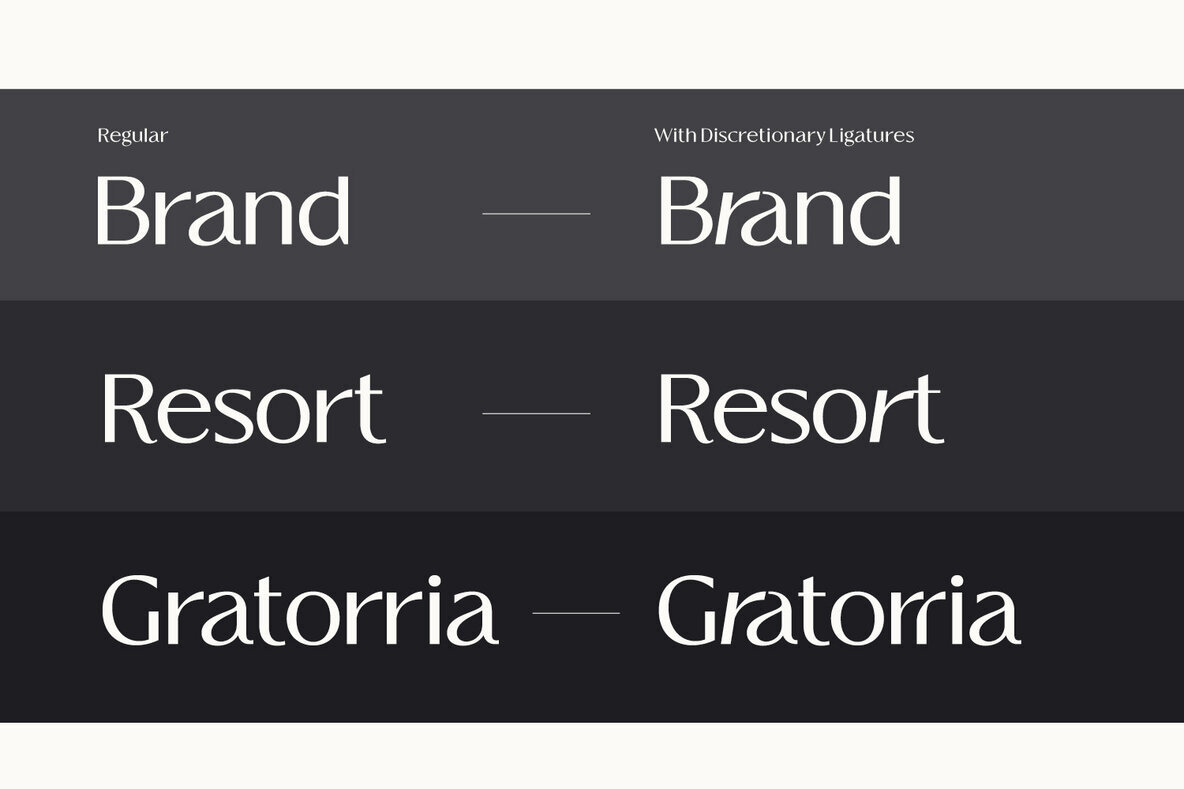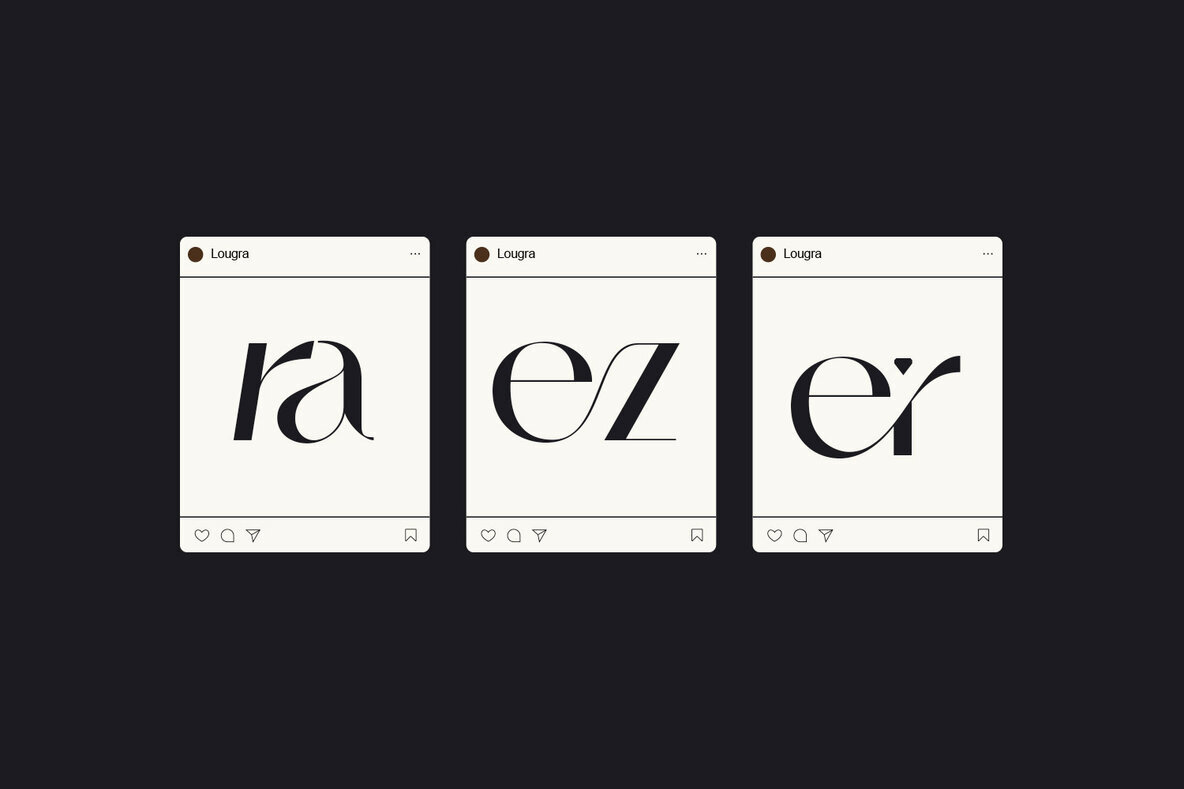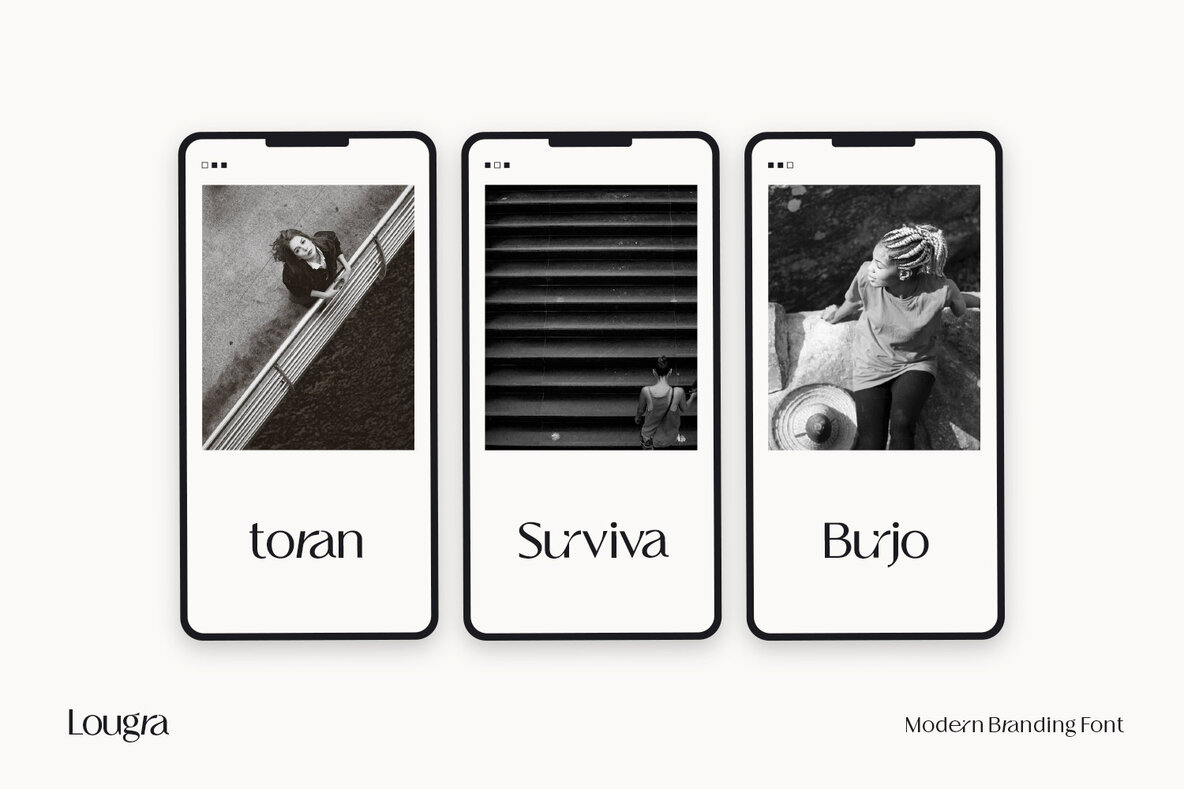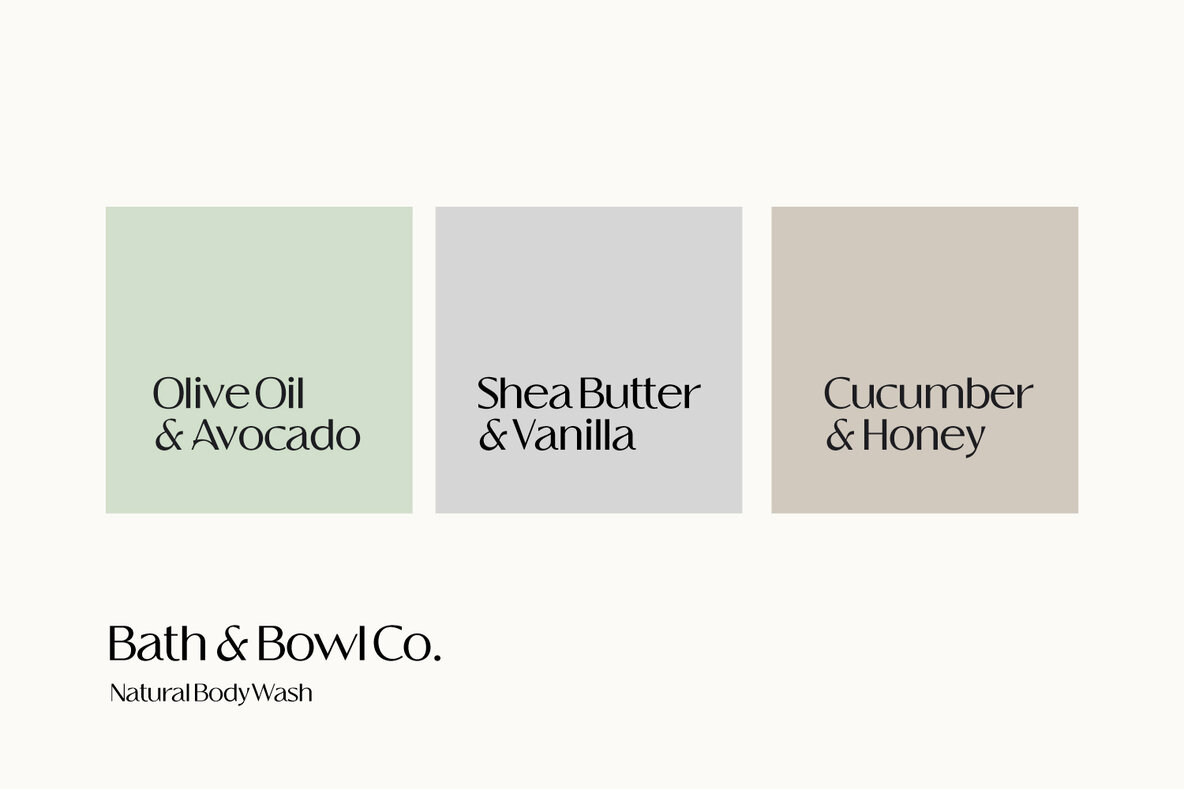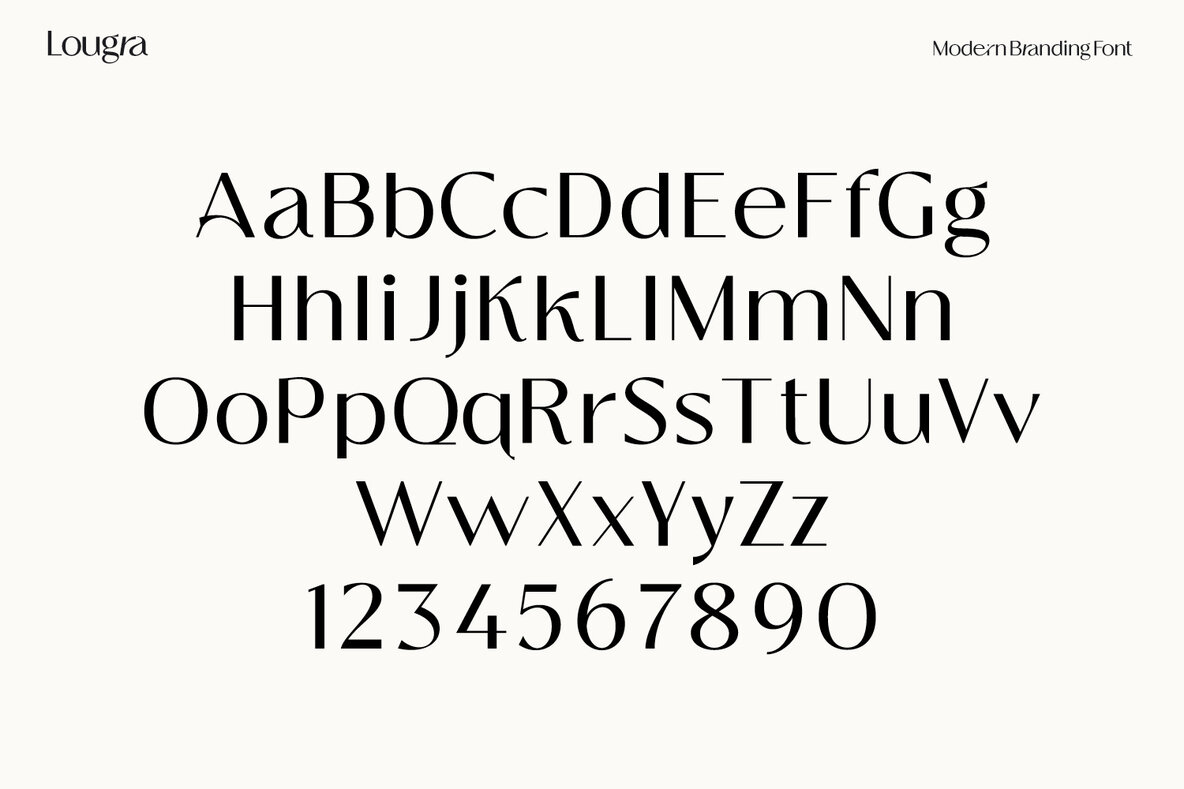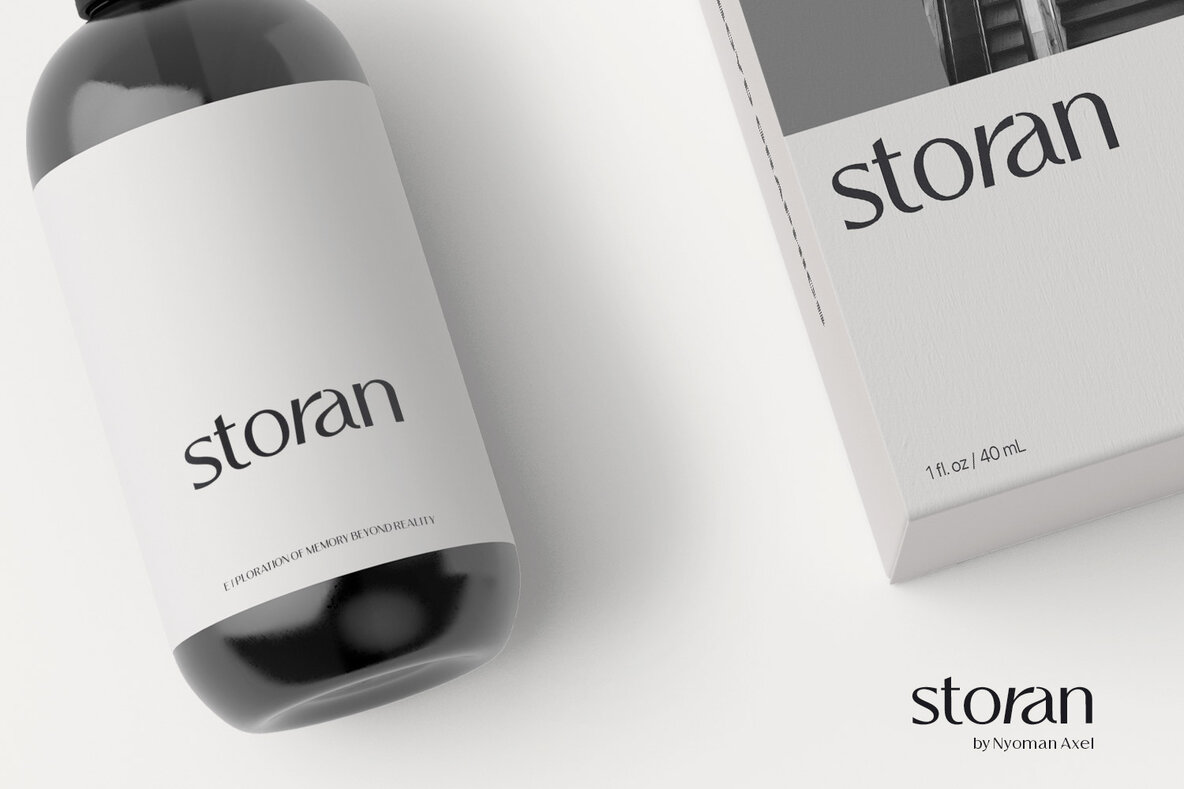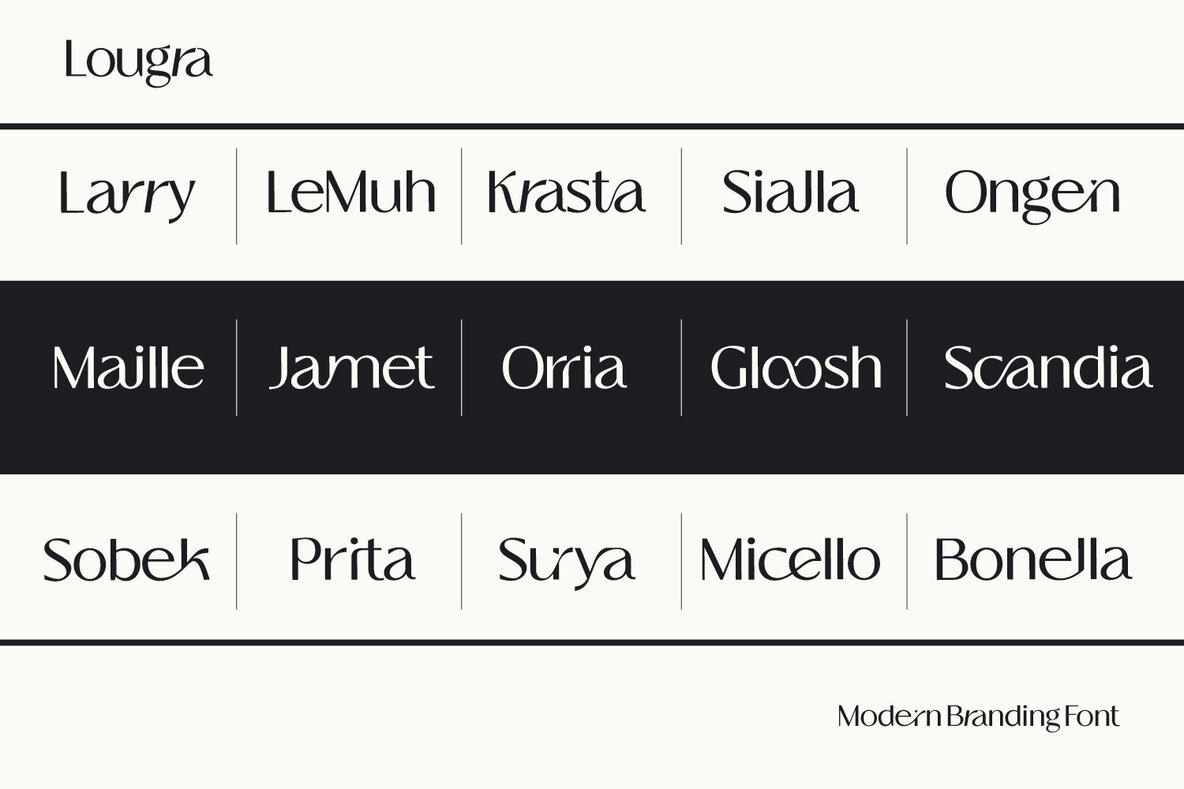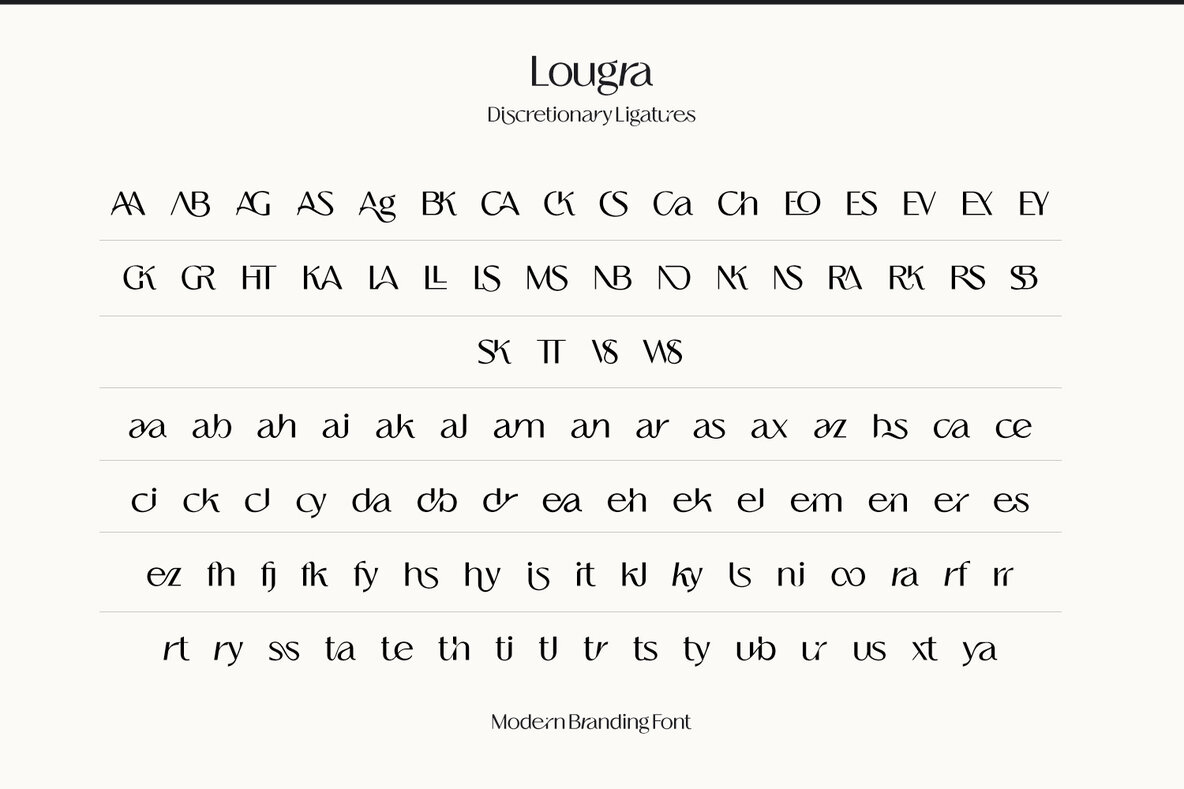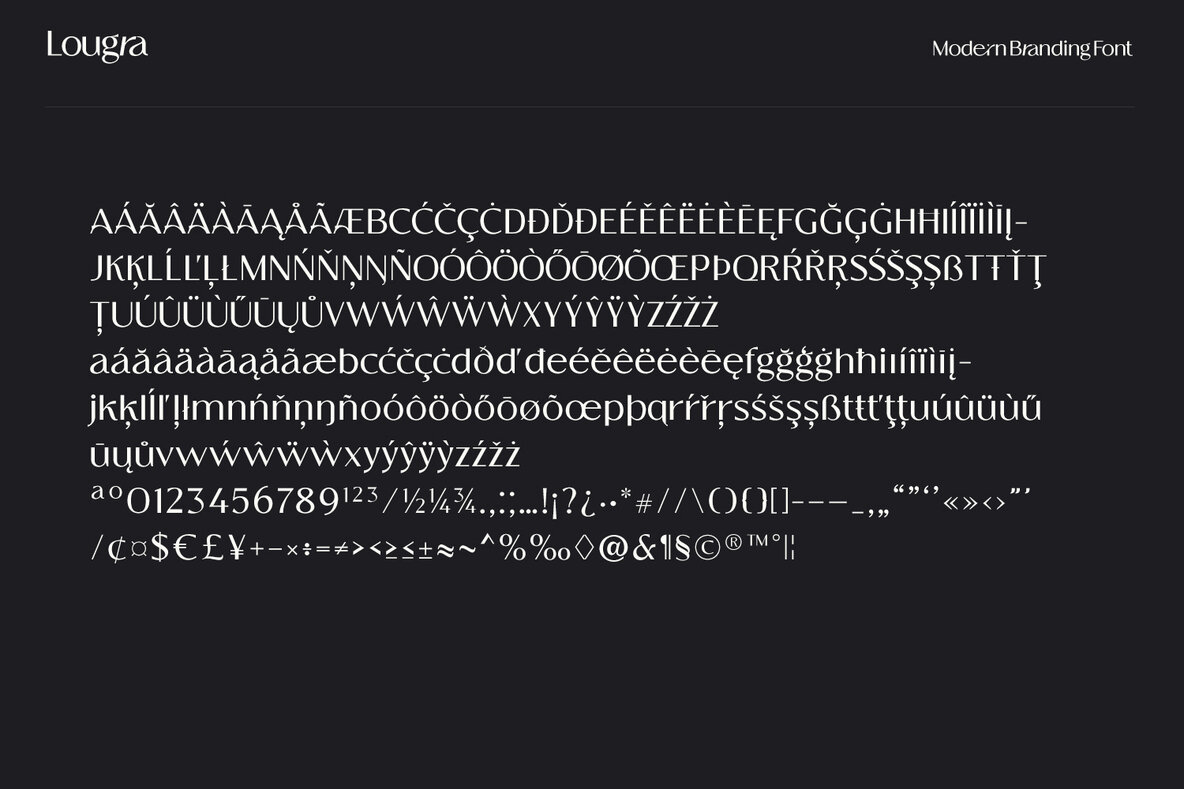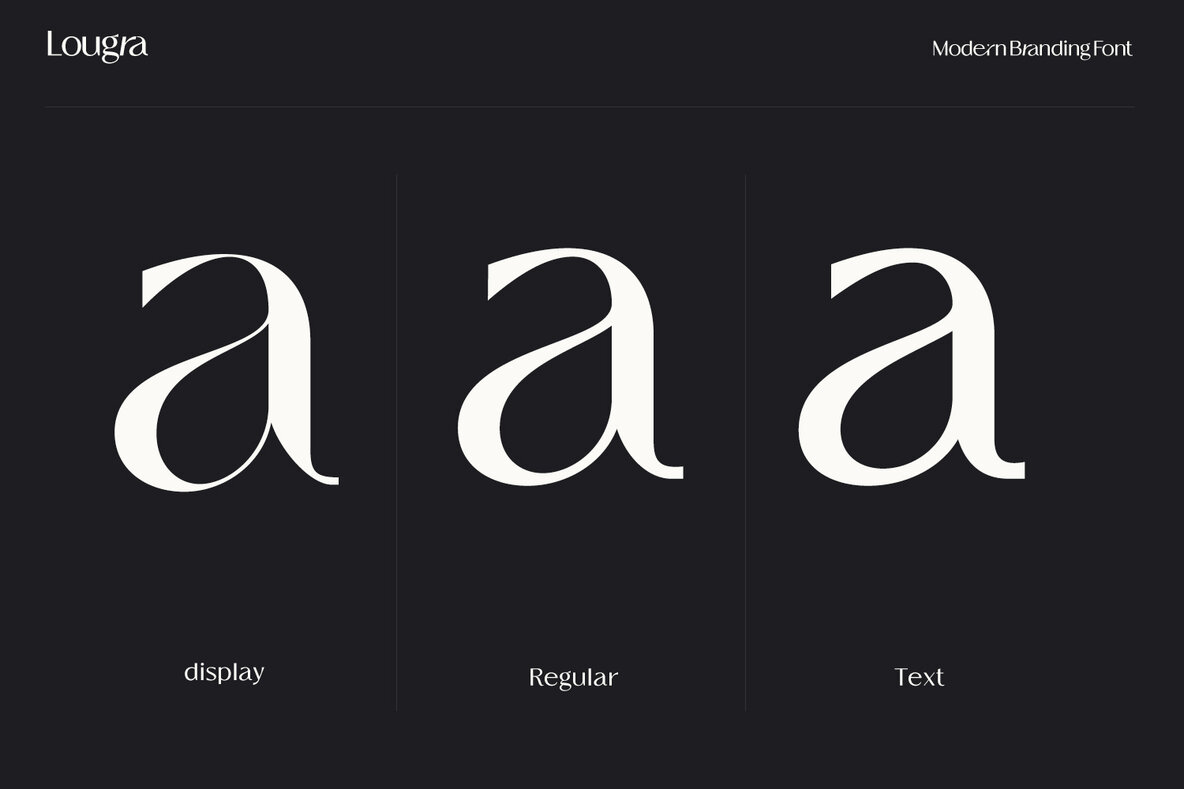
Lougra Font
Lougra is an elegant and minimal font with more than 100 ligatures. Three weights contrast options: display, regular and text. This Font is best for branding, webdesign project, logo and much more. comes with variable format as well as multilingual support, numbers, and currency symbols.